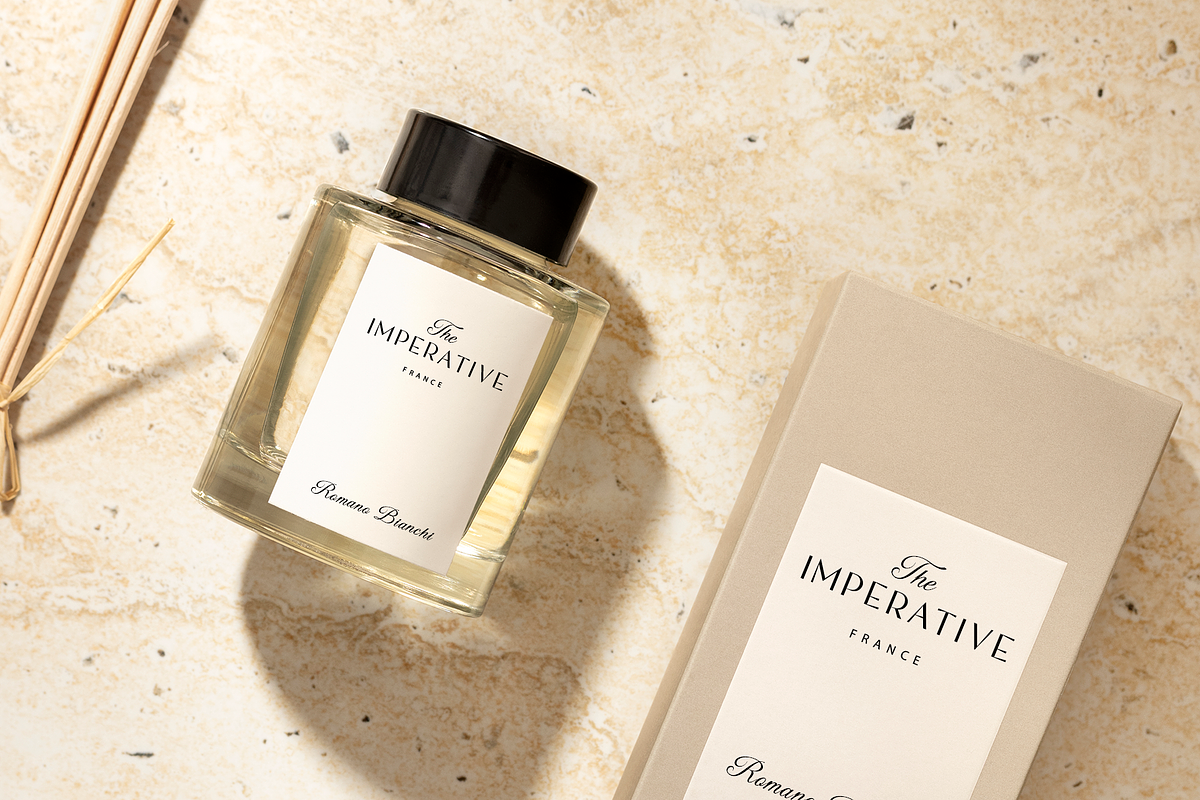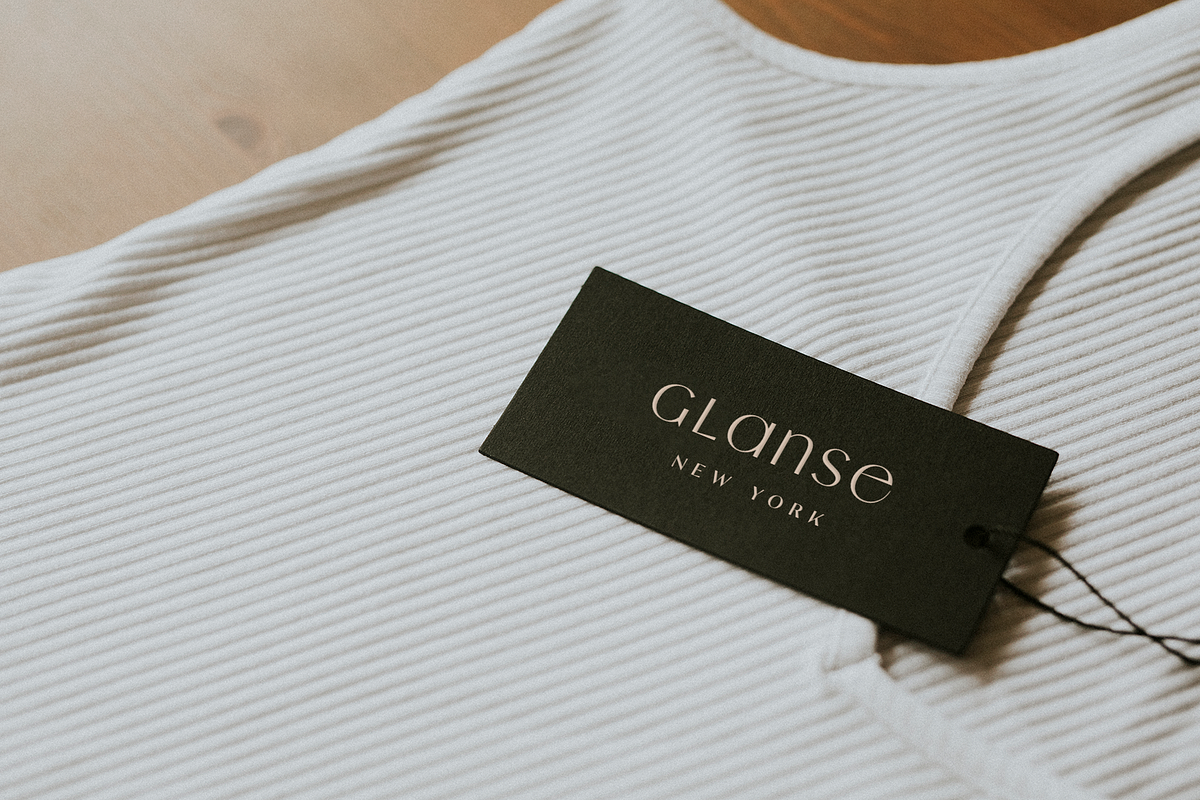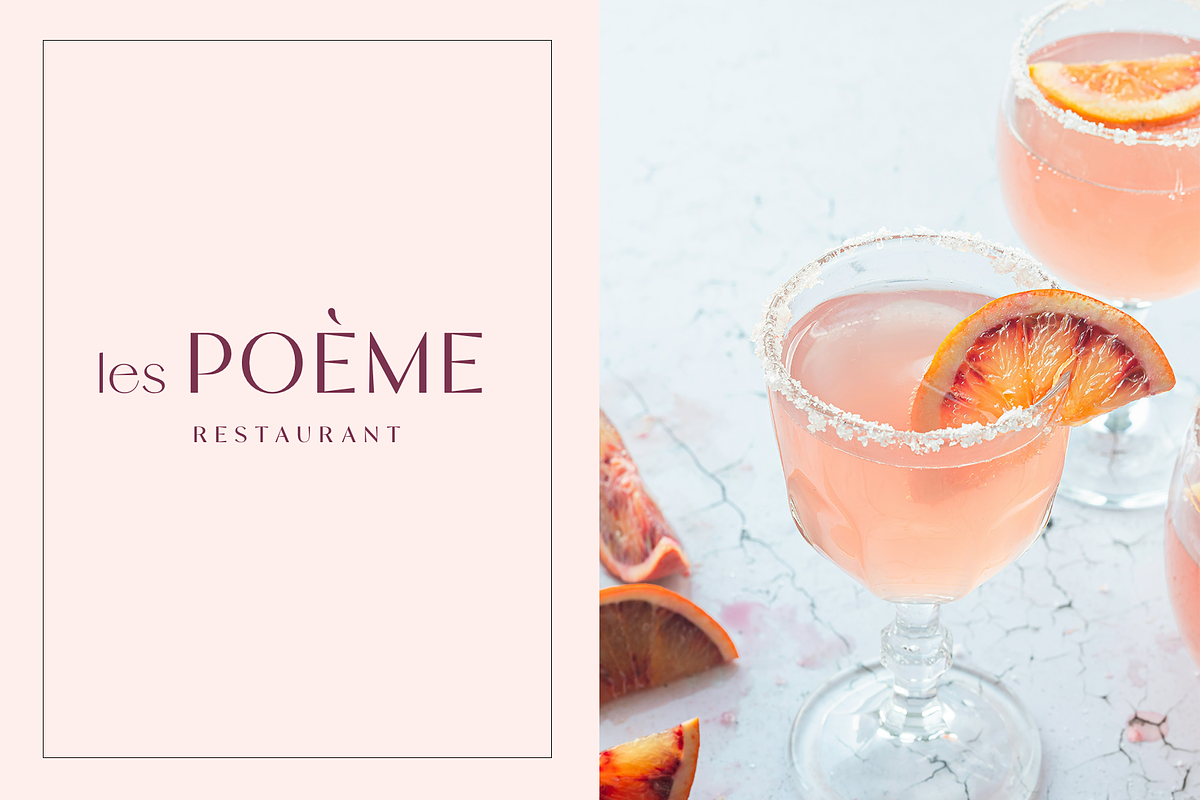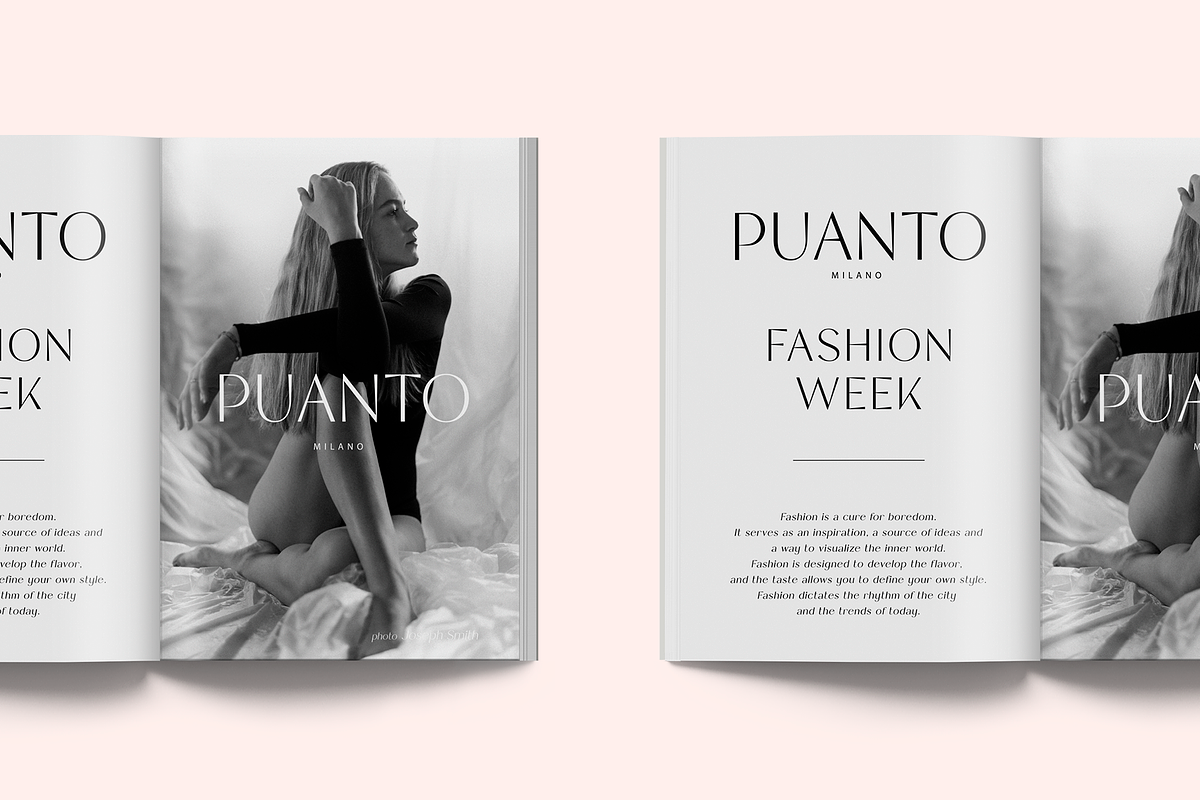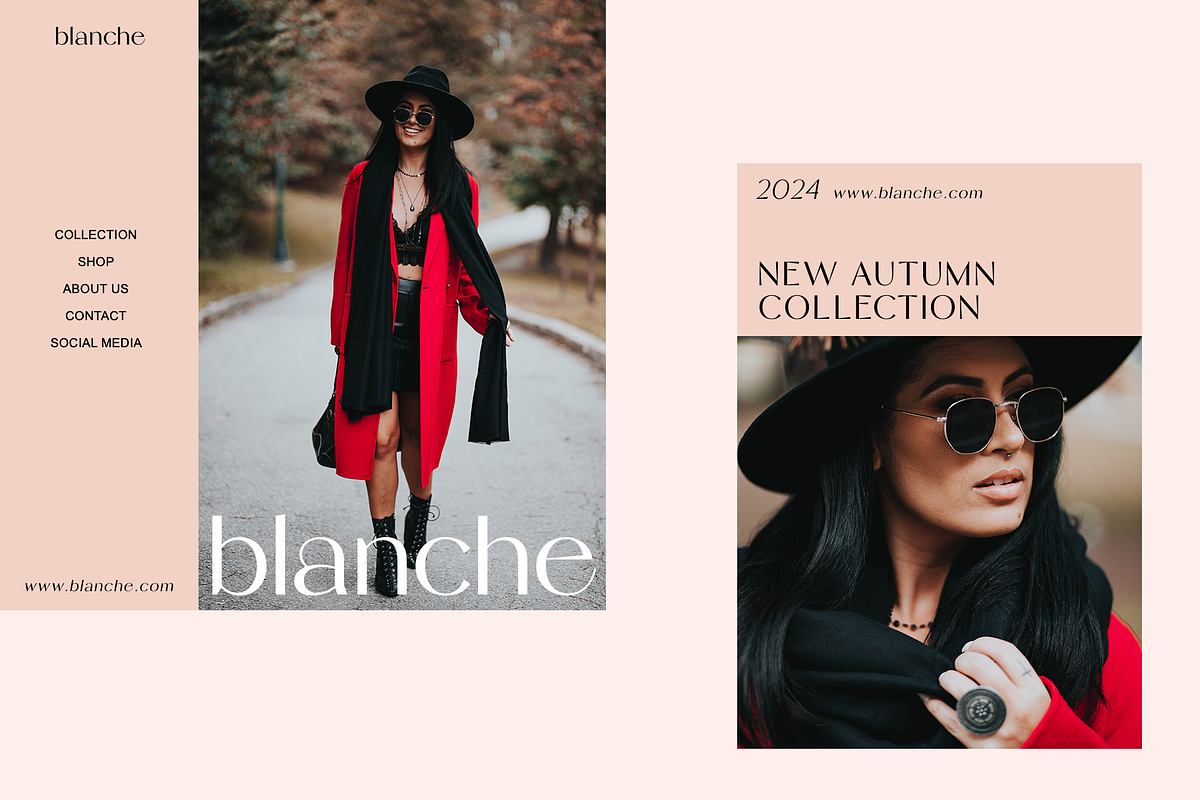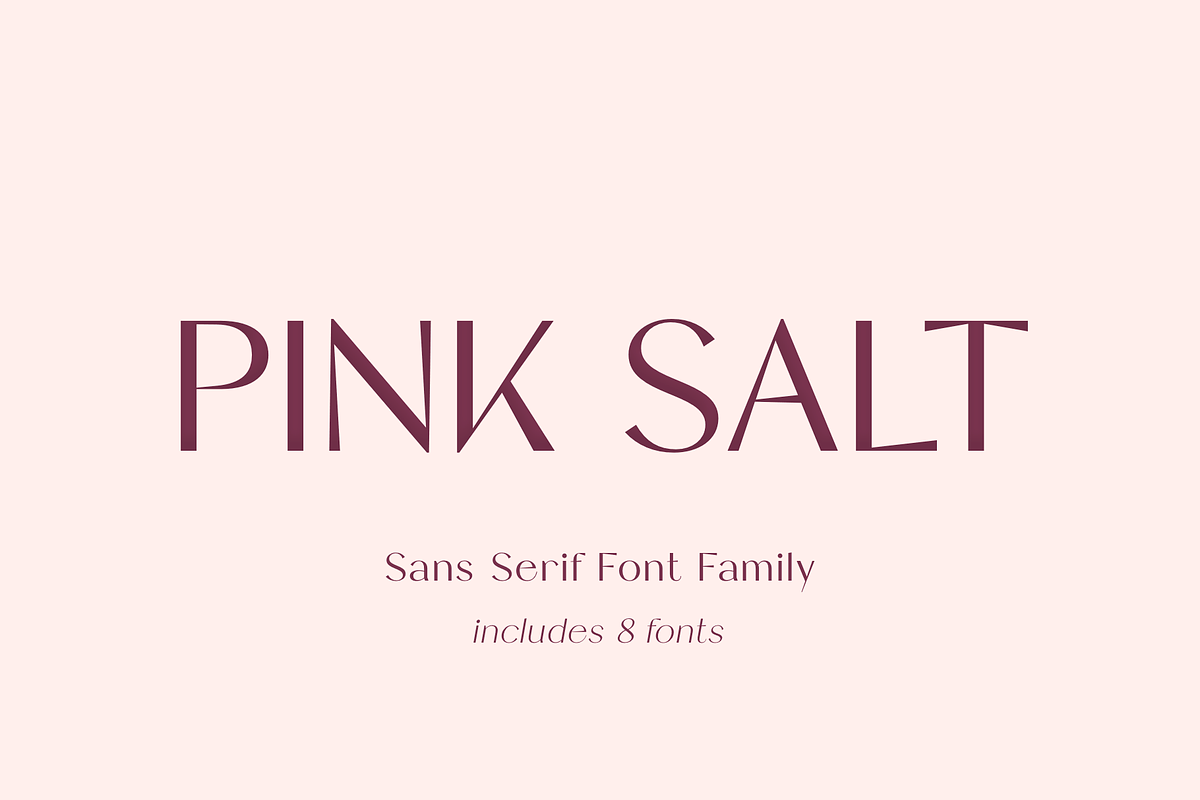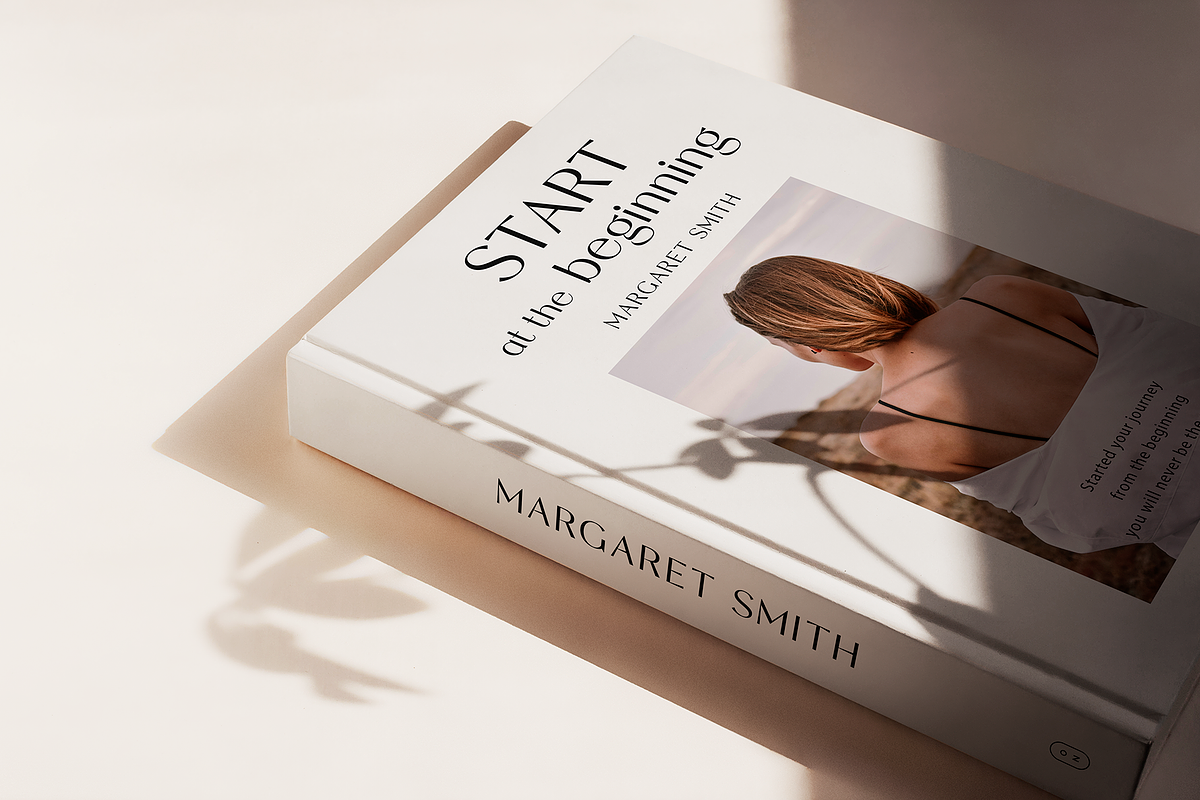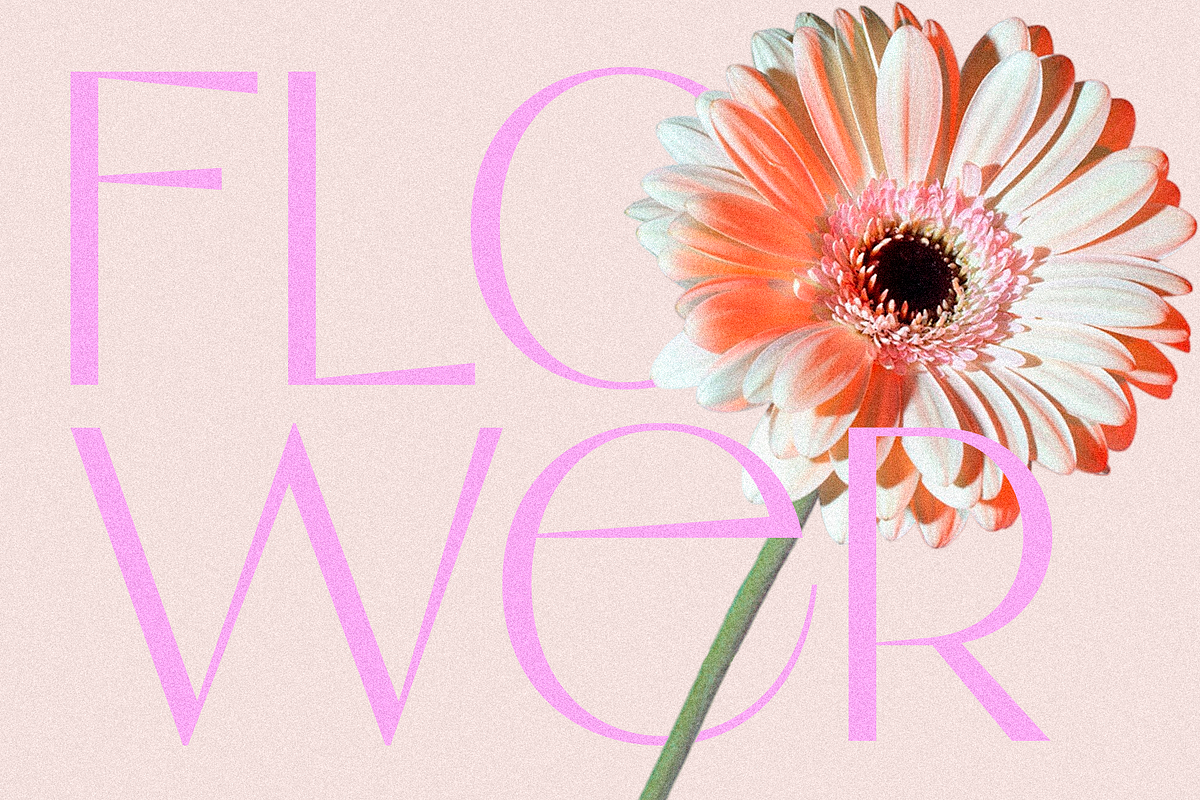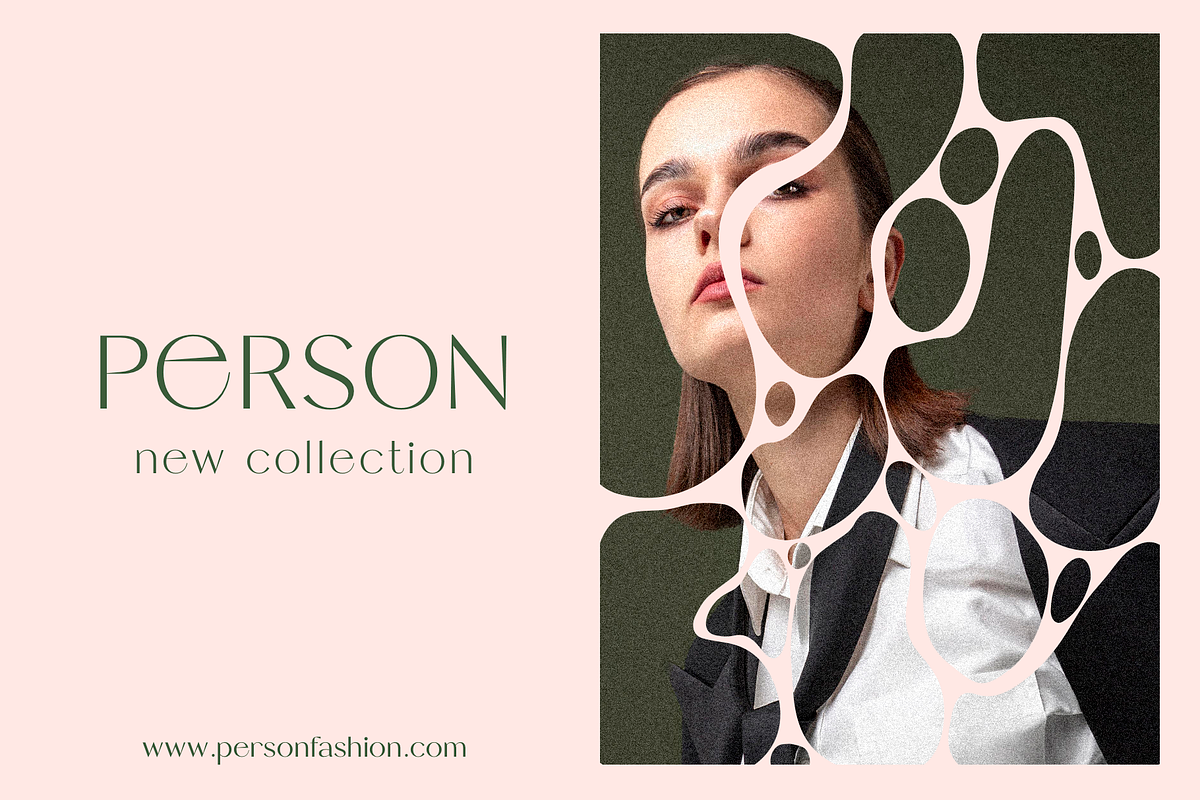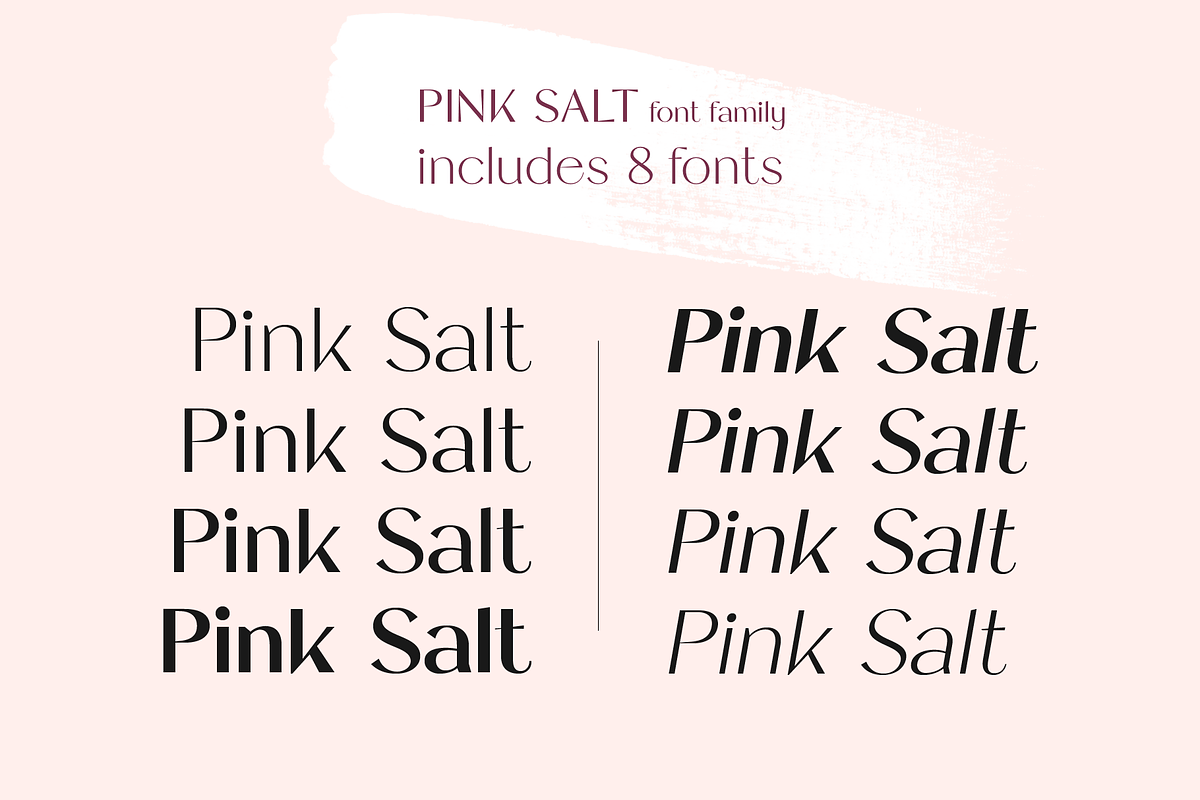
Pink Salt
Pink Salt is an elegant, modern, and expressive contrast sans-serif font family, and a great fashionable solution for your project. It includes upright and Italic style, each of them has four weights from light to bold. This is a multi-purpose font that is perfect for fashion project, it is contrasted, modern and easy to read. With it, you can create logos, banners, use in advertising, packaging, book covers and magazines, headings, descriptions and much more.
Following international symbols support: ÀÁÂÃÄÅĄÇĆÈÉÊËĘÌÍÎÏÐÑŃŁÒÓÔÕÖØÙÚÛÜŚŠŸÝŹŻŽßàáâãäåçèéêëìíîïðñòóôõöøùúûüýÿąćęłńśšźżž
Full alphabet with Uppercase and Lowercase A-z
Numbers, fractions
Punctuation and symbols
Alternates for Uppercase and Lowercase